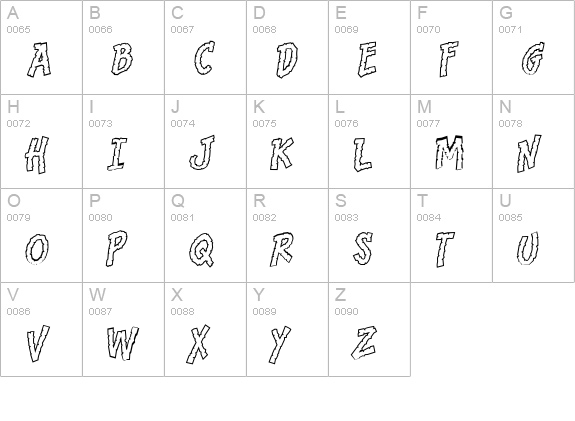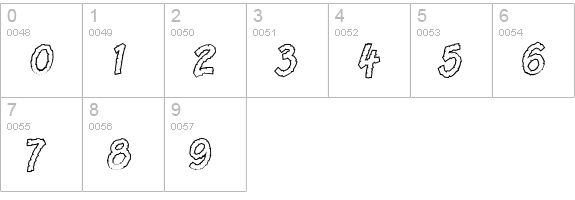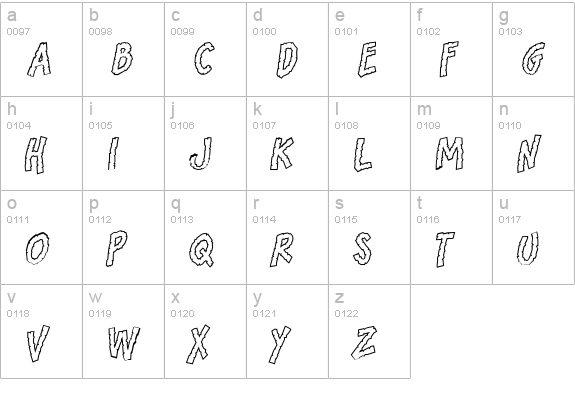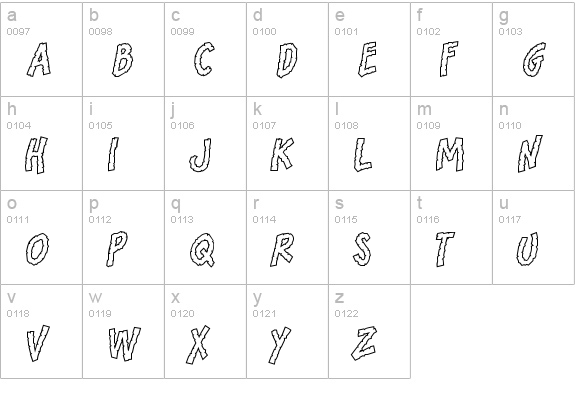
CCBrontoBurger-Medium Font Details
CCBrontoBurger-Medium is a balanced, medium-weight variant in the CCBrontoBurger typeface family \xE2\x80\x94 well suited to sub-headlines, navigation, and balanced editorial work.
The CCBrontoBurger-Medium font is a versatile and eye-catching typeface that will add a touch of charm and uniqueness to your design projects. With its bold and modern appearance, this font is perfect for headlines, branding, posters, and more. What makes CCBrontoBurger-Medium even more appealing is that it is available for free download at FontsMarket.com. This means you can easily access and use this stylish font in your projects without any cost. Impress your audience with the bold and striking CCBrontoBurger-Medium font, and elevate your designs to the next level. Download it for free today and start creating stunning visuals that stand out from the crowd.